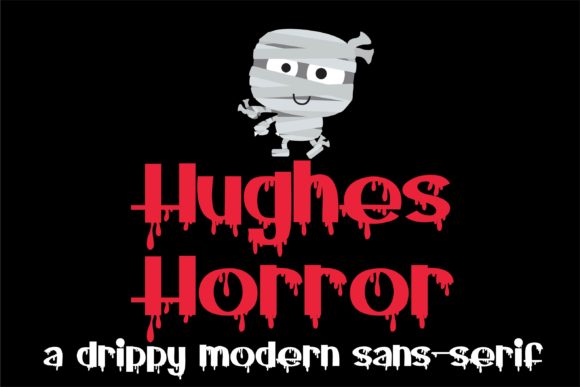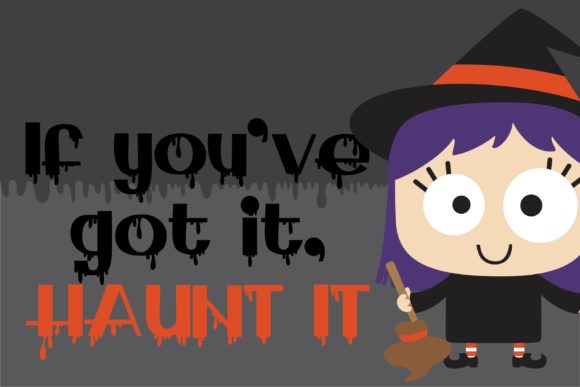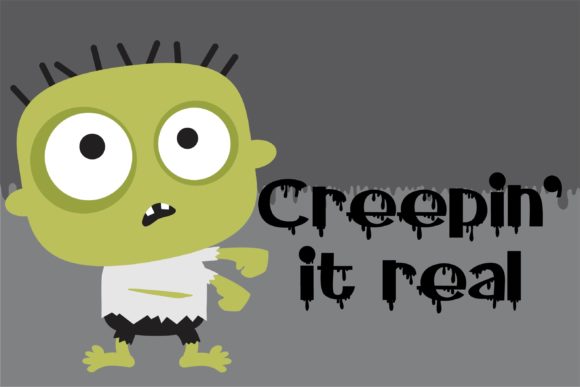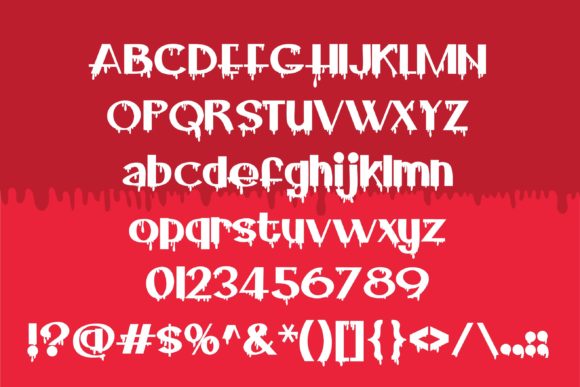
Hughes Horror Font: Drippy Halloween Typography for Cricut & Crafts
About the Hughes Horror Font
Presenting Hughes Horror Font, a unique and stylish typeface that will make your work stand out. Hughes Horror is a drippy and chilly sans serif font. Get inspired by this bloody creative typeface!
Hughes Horror excels in short, impactful displays such as headlines, posters, and logotypes for horror-themed projects, Halloween events, or edgy brands. Its dripping effect works best in larger sizes where the detail is visible; avoid using it for body text or UI elements, where legibility is paramount. Smaller sizes will lose the distinctive drips and become illegible.
The font’s core personality is bold and rebellious. To balance this, consider pairing it with a clean, geometric sans-serif for contrast, or a more traditional serif for a touch of sophistication. Pairing it with a script font would be unsuitable; a neutral sans-serif would also be a good, safe option.
For a particularly striking effect, combine Hughes Horror with a minimalist sans-serif for titles and subheadings, enhancing the visual impact of the dripping effect without overwhelming the design. Always prioritize legibility when choosing companion fonts.
Hughes Horror Font Usage Examples
Hughes Horror Font Example